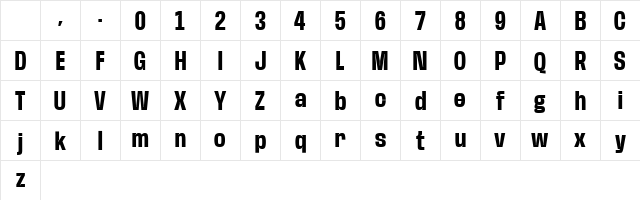
Base Neue Cond is a composed and adaptable typeface that performs quietly and consistently across a wide range of design contexts. Its bold stroke weight gives it real presence on the page. Its narrow stance lets it pack a punch even in space-constrained designs.